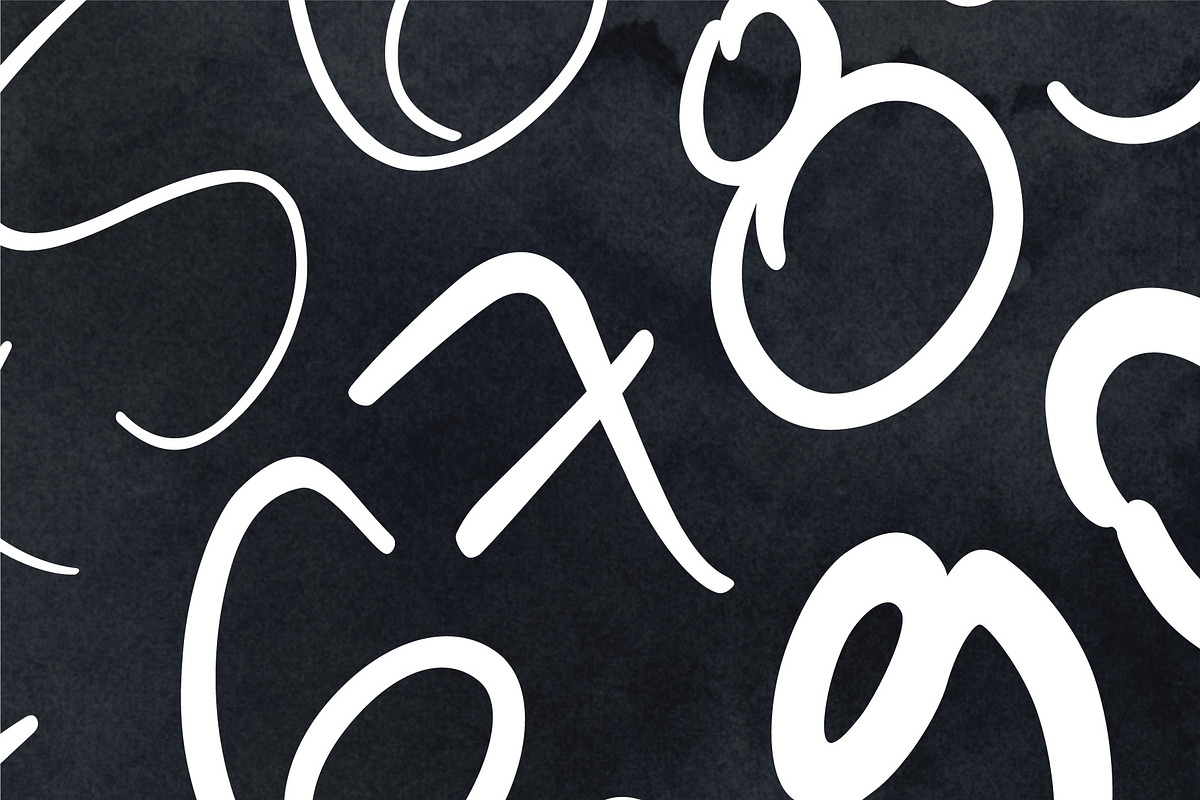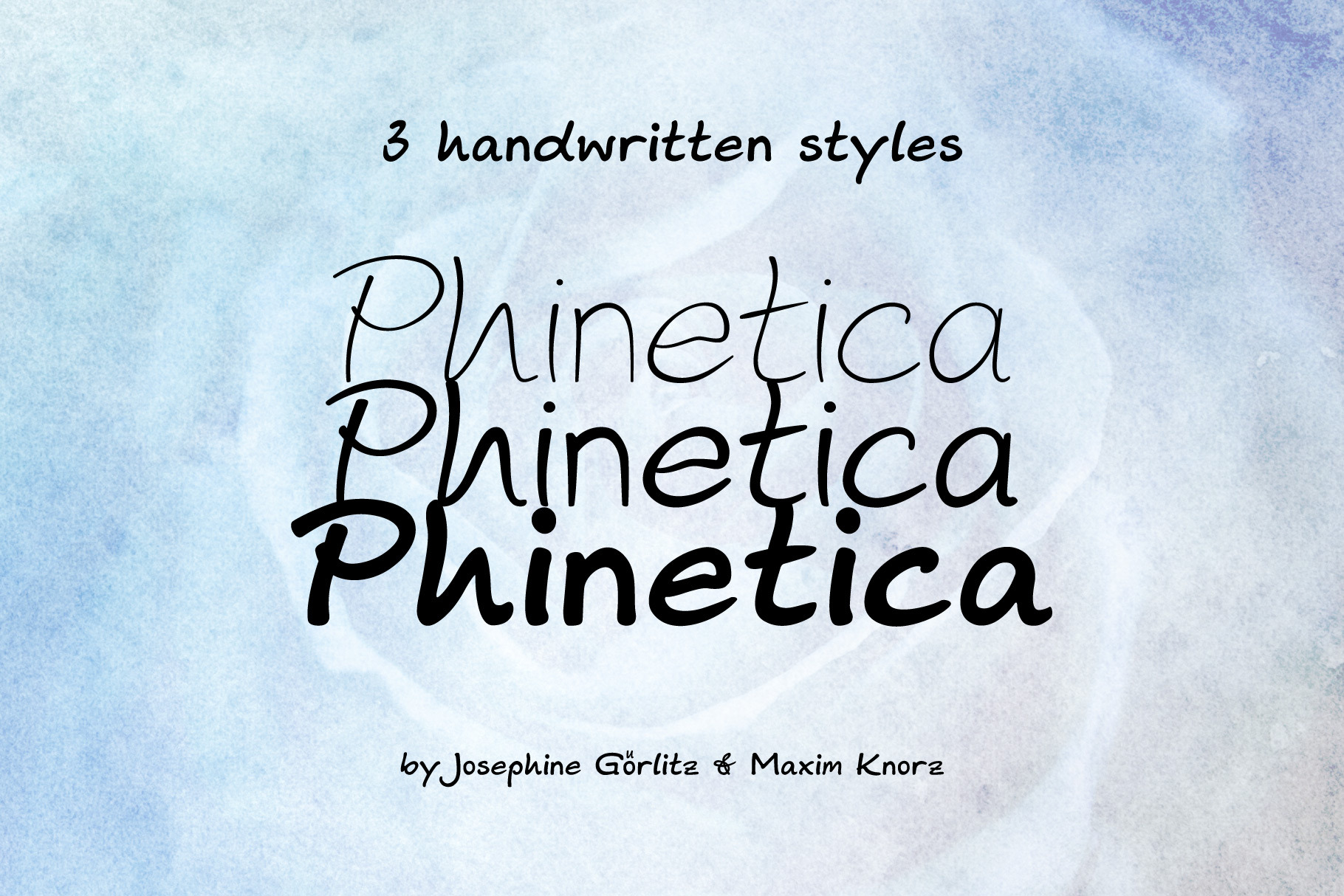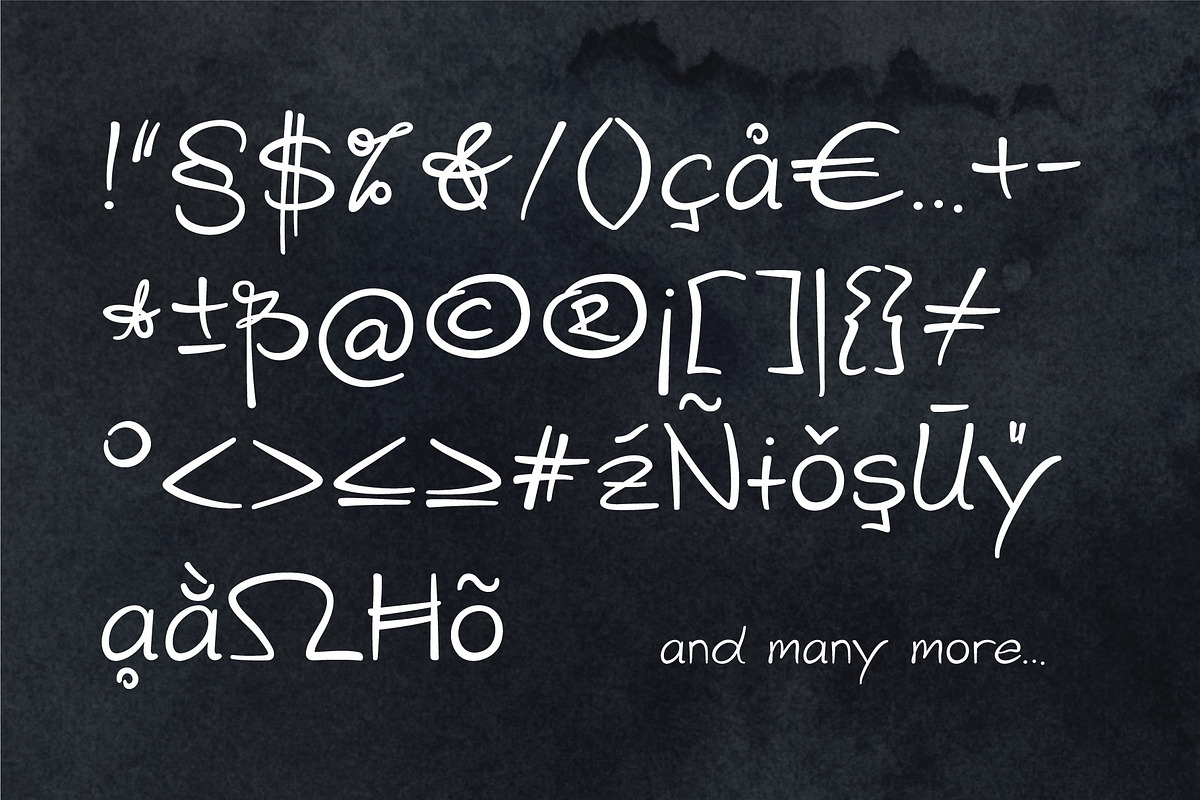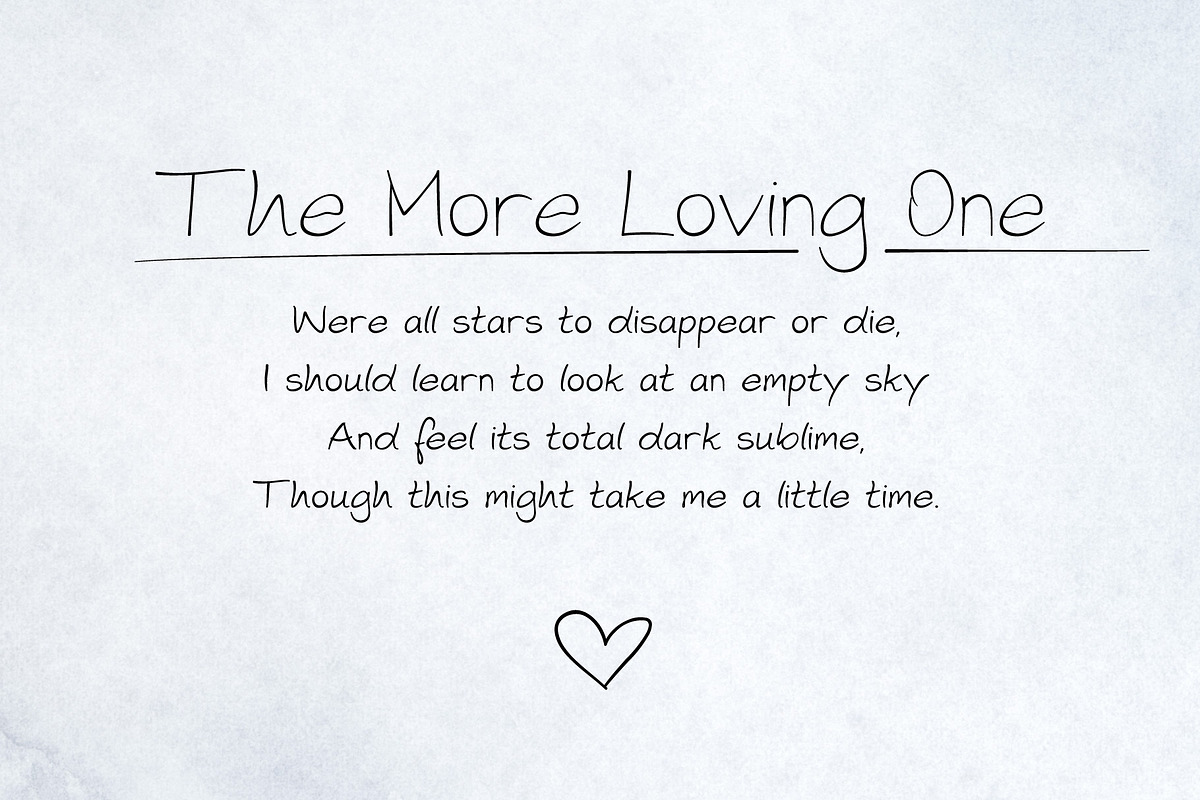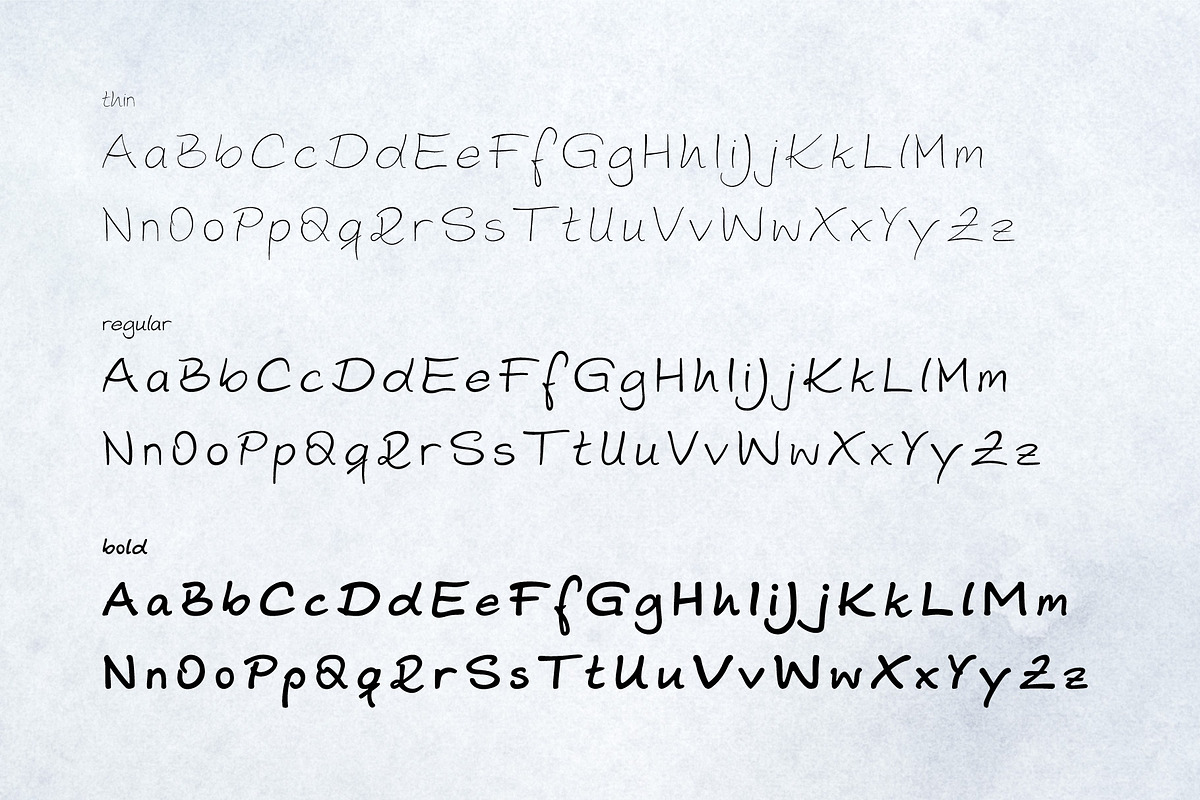
Phinetica Font Family
Phinetica is a beautiful well crafted handwritten font that combines three different weights. Thin, Regular and Bold. It's organic flow makes it a unique to give your design a very personal touch. A beautiful font for Branding, Packaging or just your next wedding invitation.
It comes with most special characters and supports multiple languages.